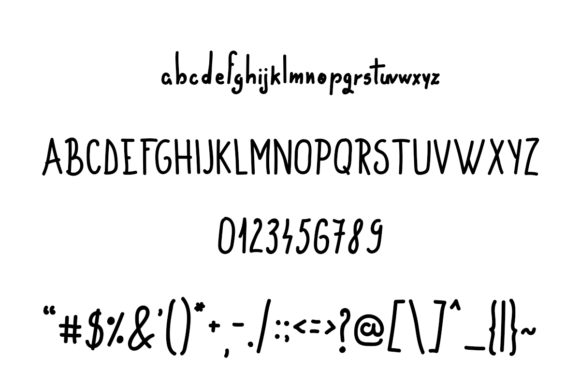
Round Marker Font
About Round Marker Font
Round Marker is a cute and funny font with a unique charm that will guarantee to turn any design project into a stand out.